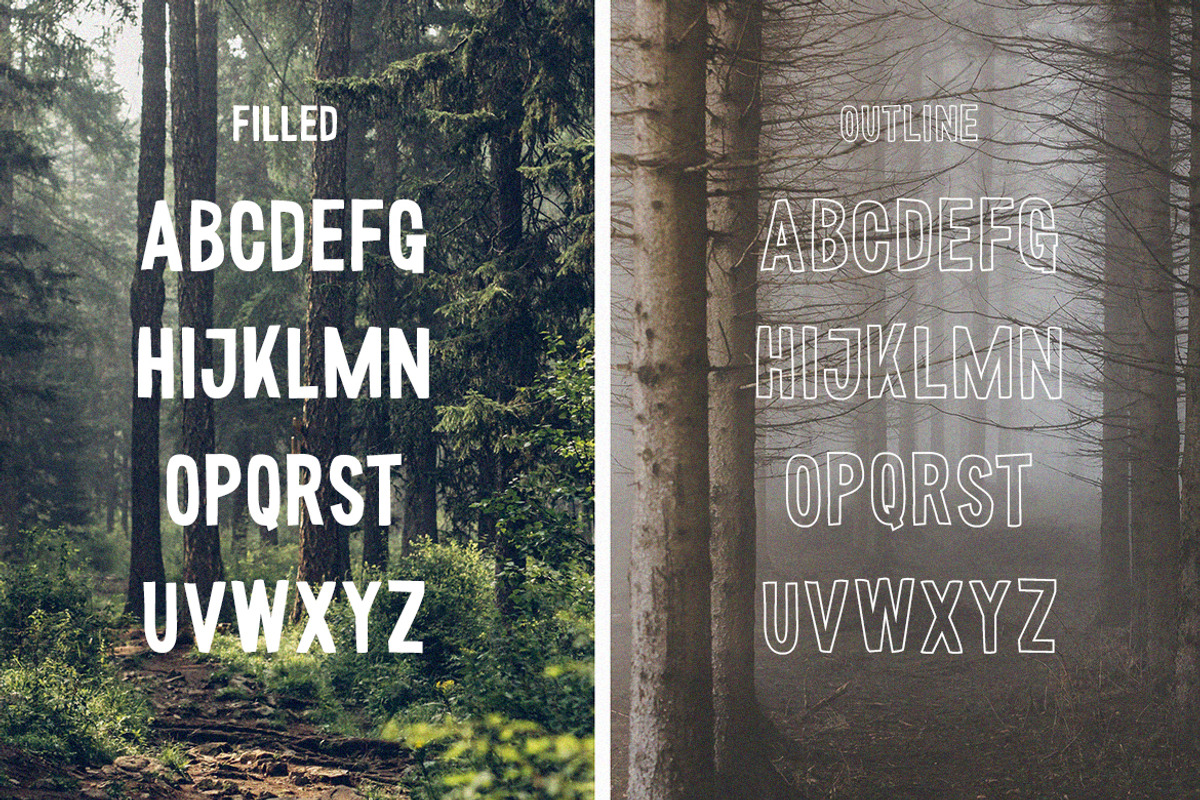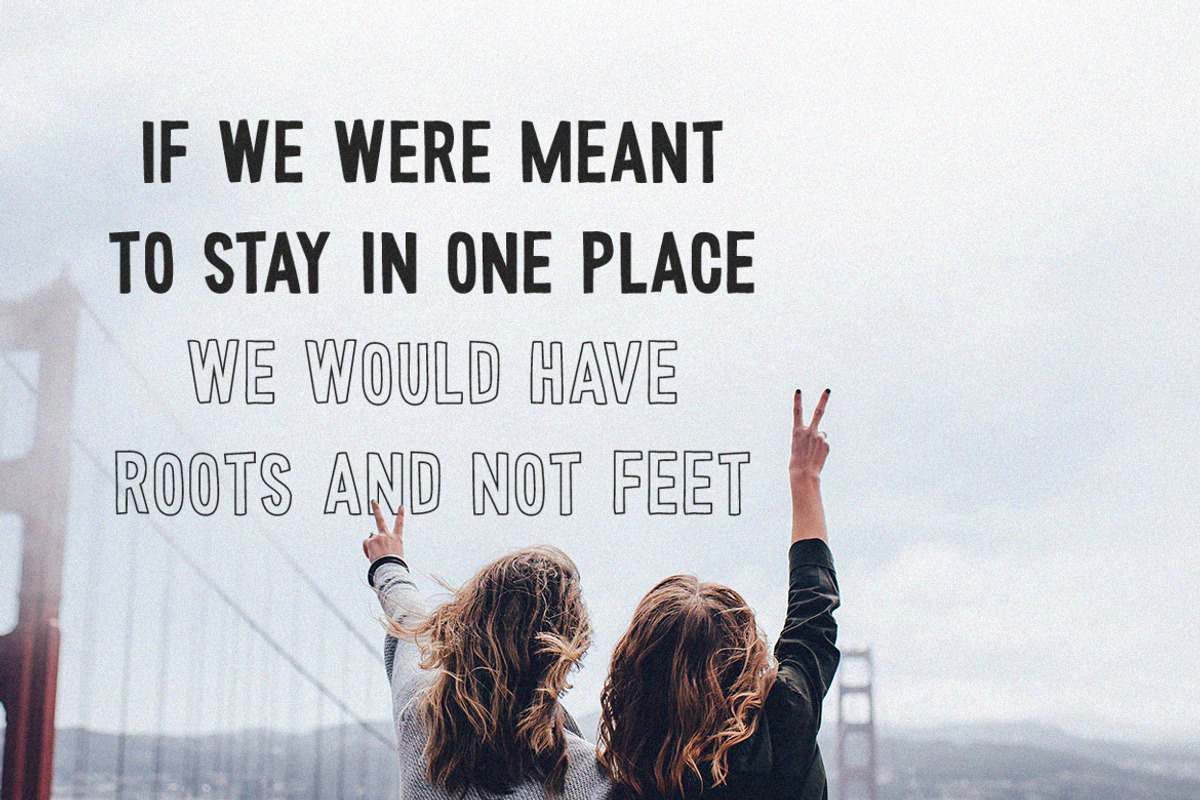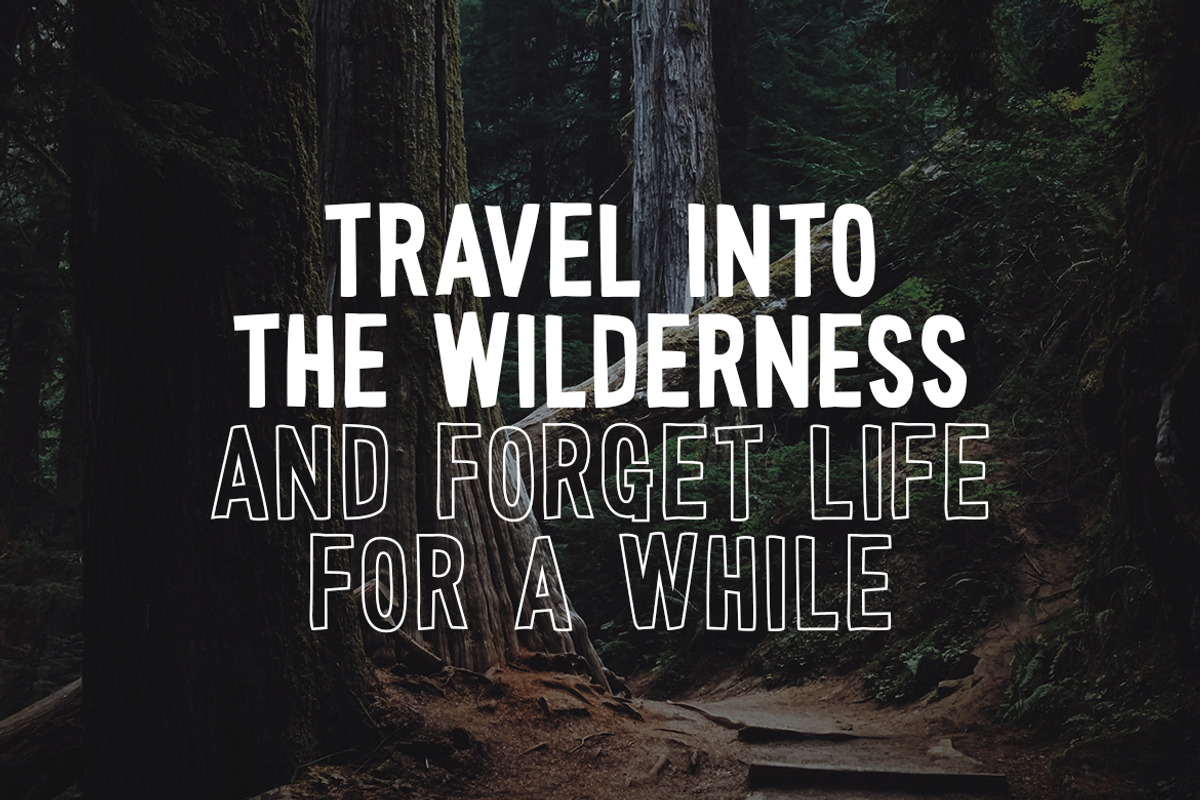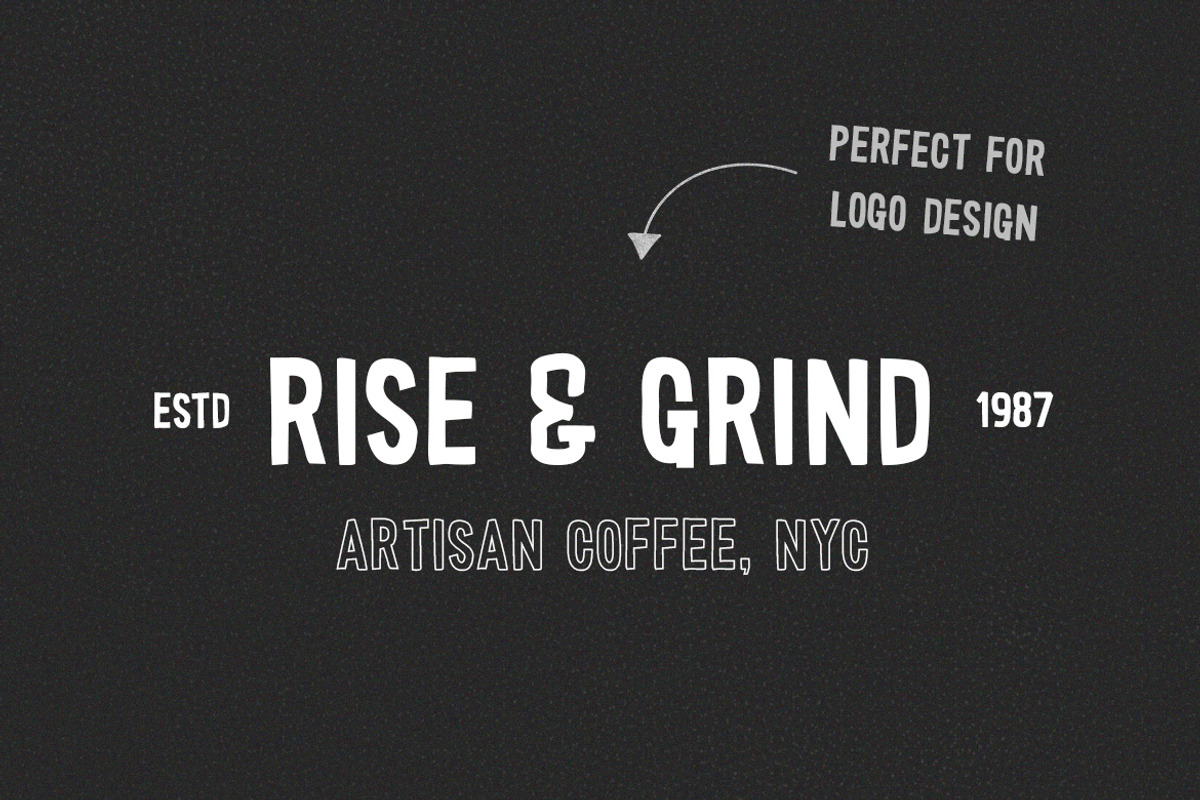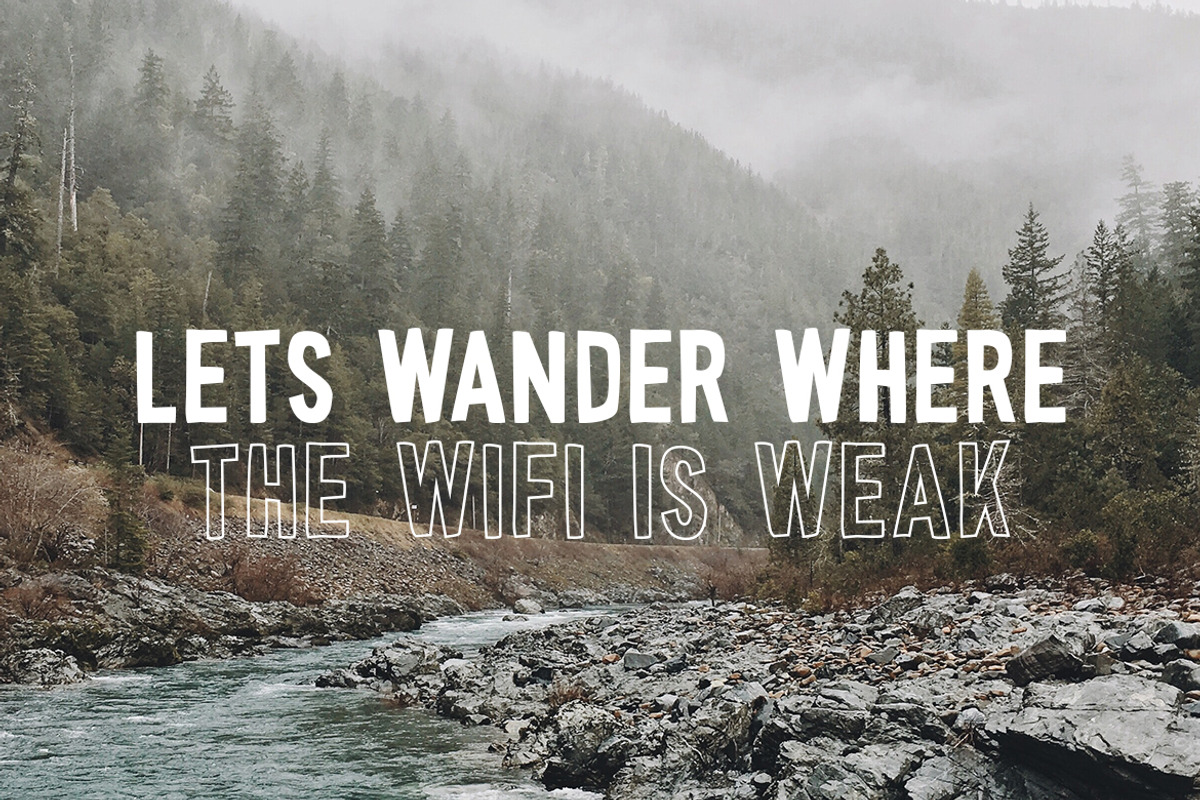
Wonderful Wilderness Font Duo
Why Wonderful Wilderness Font Duo is worth a look
Wonderful Wilderness Font Duo by Salt & Pepper Designs fits naturally into Branding, posters, packaging, typography.